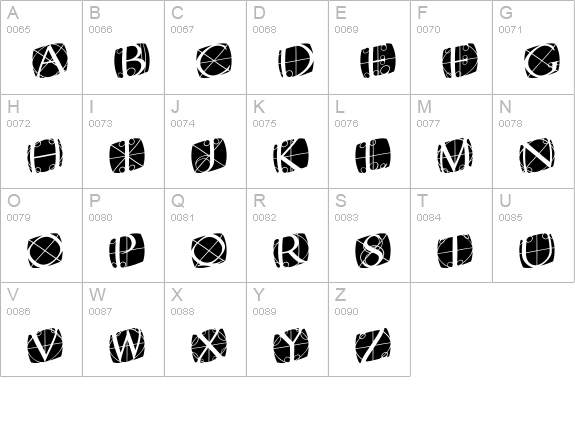
RodgauerTwoRounded-Medium Font Details
RodgauerTwoRounded-Medium is a balanced, medium-weight variant in the RodgauerTwoRounded typeface family \xE2\x80\x94 well suited to sub-headlines, navigation, and balanced editorial work.
RodgauerTwoRounded-Medium font is a versatile and modern typeface that strikes the perfect balance between professionalism and creativity. Its rounded edges give it a friendly and approachable feel, making it ideal for a wide range of design projects. This font is not only visually appealing but also highly legible, making it suitable for both digital and print applications. Whether you're designing a logo, creating marketing materials, or crafting a website, RodgauerTwoRounded-Medium font is sure to make your text stand out. Best of all, this font is freely available to download at FontsMarket.com, allowing you to add a touch of sophistication to your designs without breaking the bank. Don't miss out on the opportunity to elevate your projects with the elegant and stylish RodgauerTwoRounded-Medium font today!